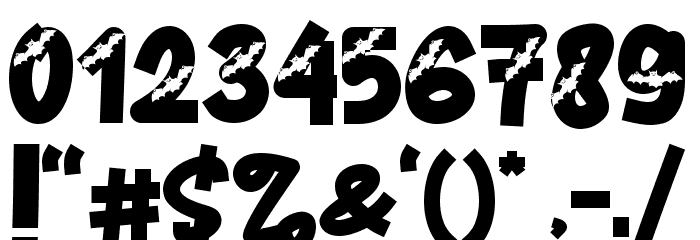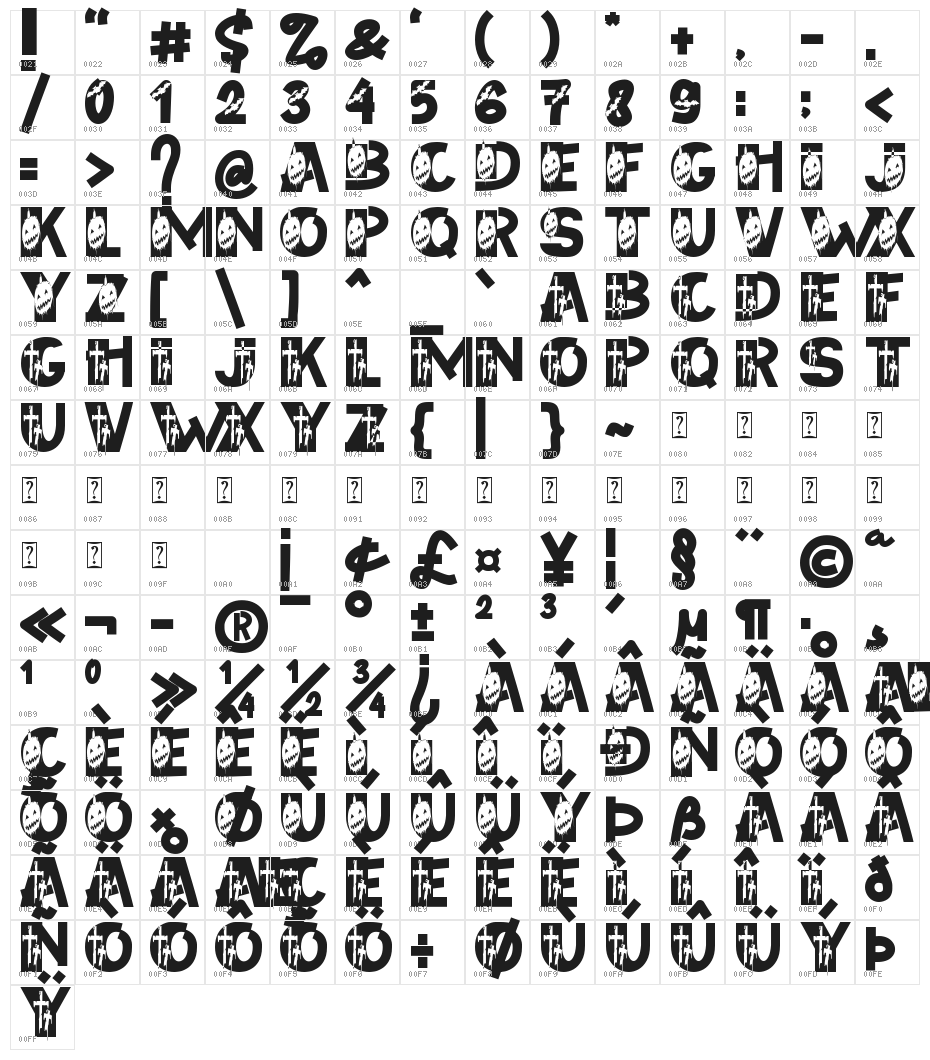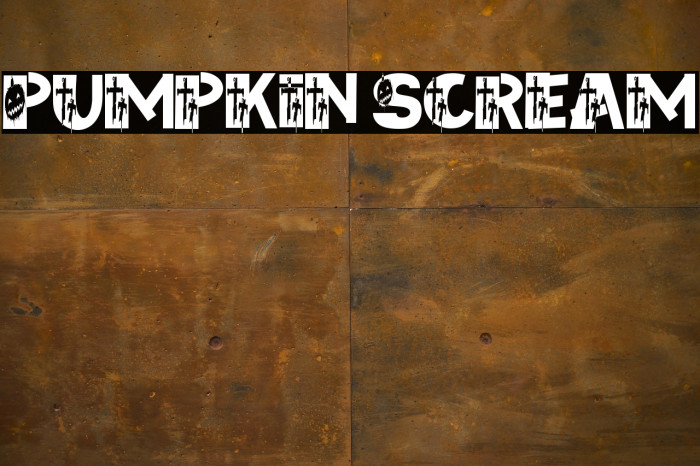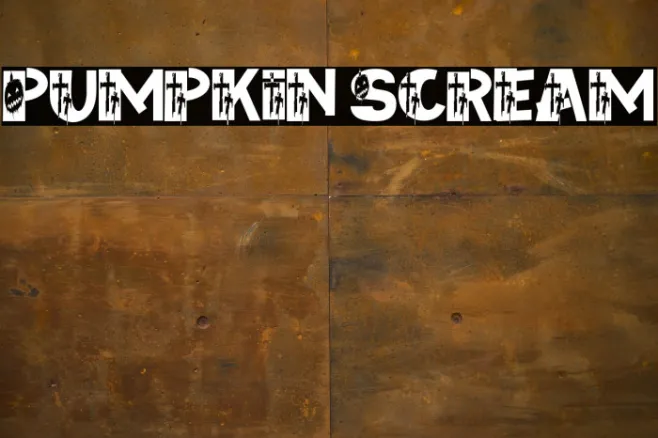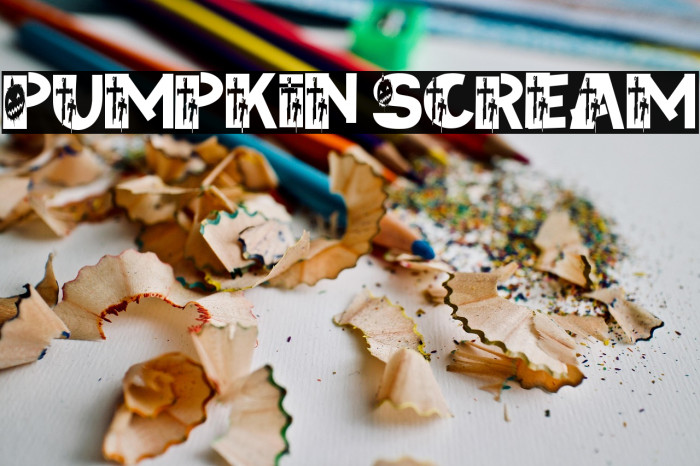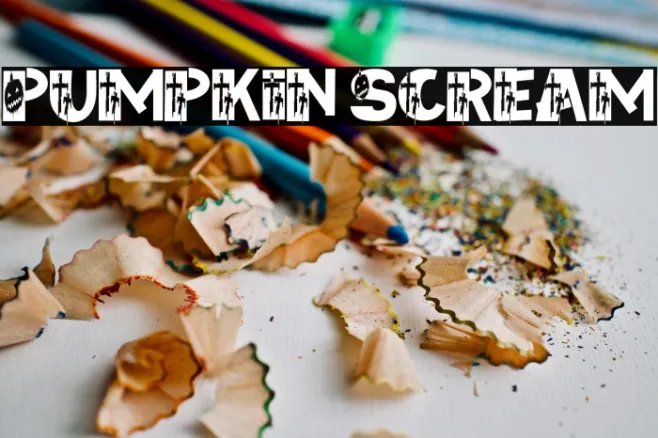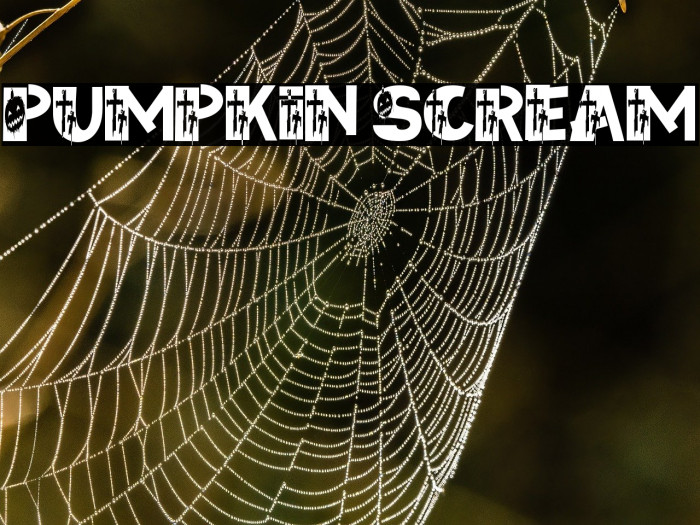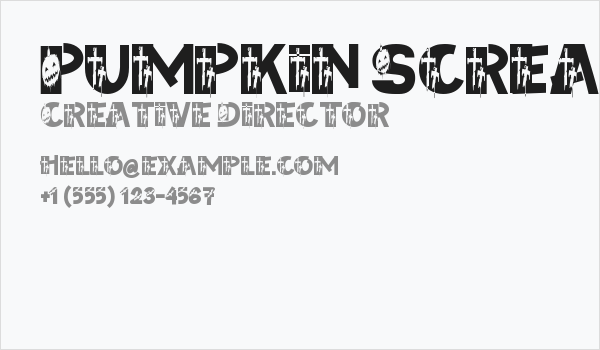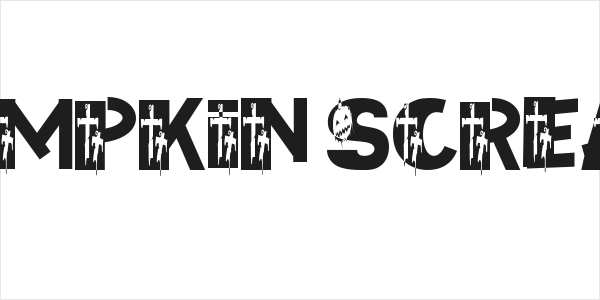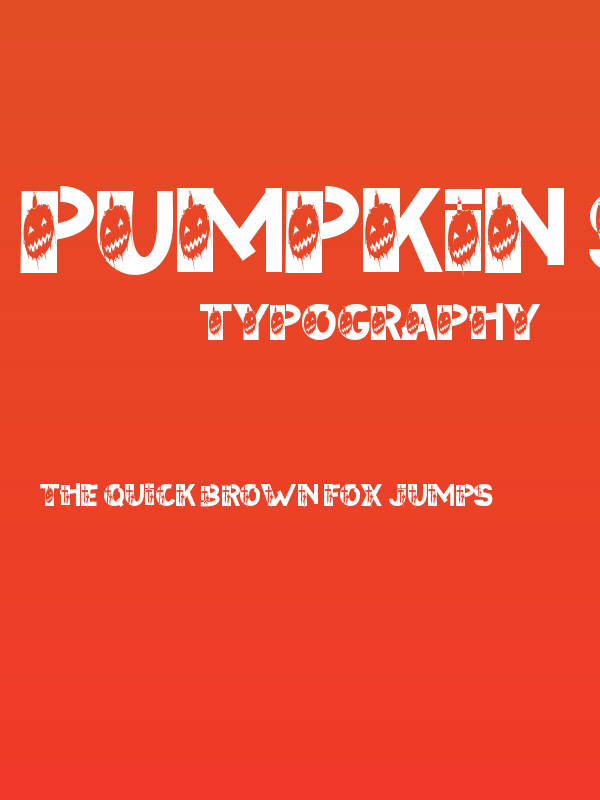
Pumpkin Scream Font
Pumpkin Scream Description
This font features a playful and spooky design, incorporating Halloween-themed elements such as pumpkins and ghosts within the letterforms. The uppercase and lowercase letters are bold and striking, with jagged edges and a slightly distressed look that adds to the eerie aesthetic. The numbers and special characters maintain this thematic style, making the font ideal for seasonal projects. The overall appearance is both fun and slightly menacing, perfect for capturing the spirit of Halloween.
| Proposed Projects | Ideal for Halloween party invitations, themed posters, spooky event flyers, and seasonal merchandise designs. |